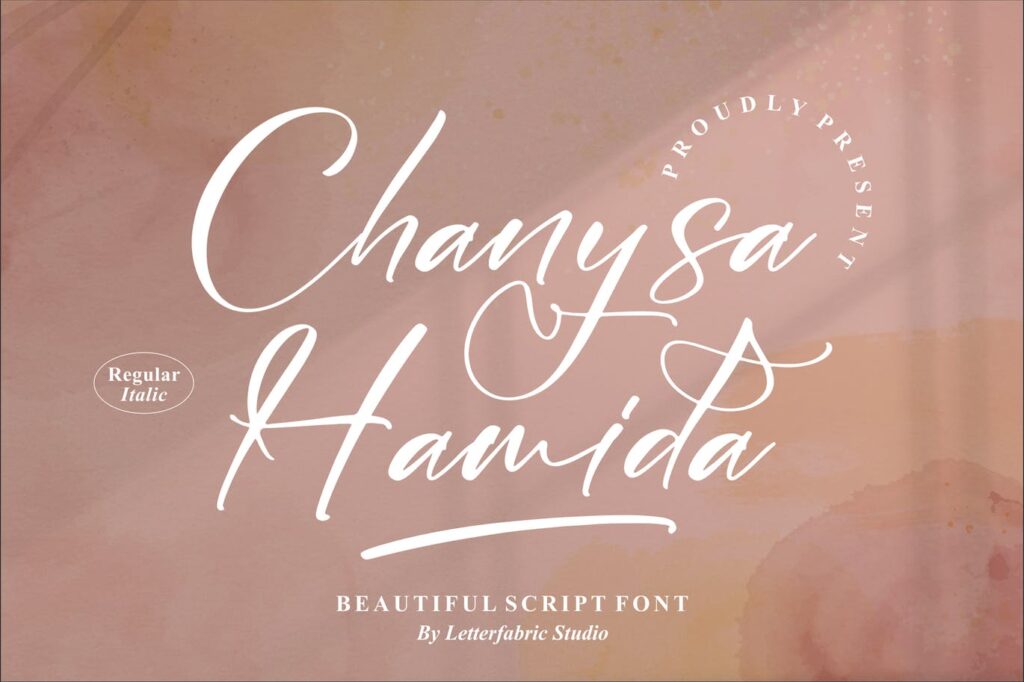
Chanysa Hamida Font
Chanysa Hamida is a beautiful and chic script font. It looks delicate on wedding invitations, thank you cards, quotes, greeting cards, logos, business cards and every other design which needs a customized touch. This font is PUA encoded which means you can access all of the glyphs and swashes with ease!
Chanysa Hamida Calligraphy Font